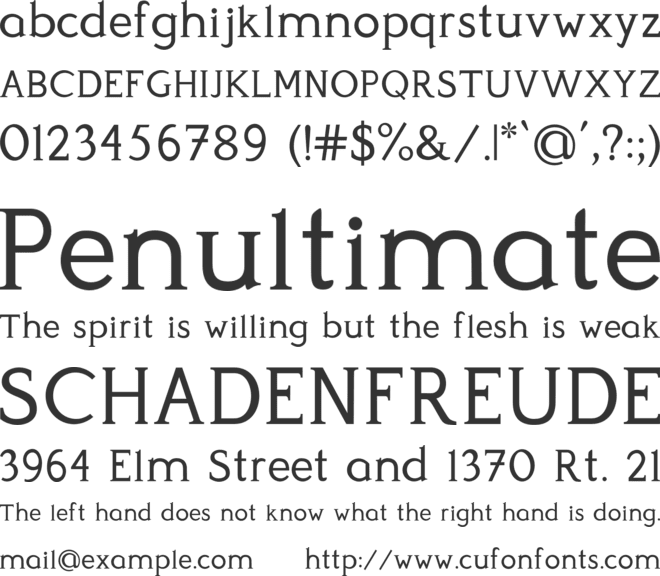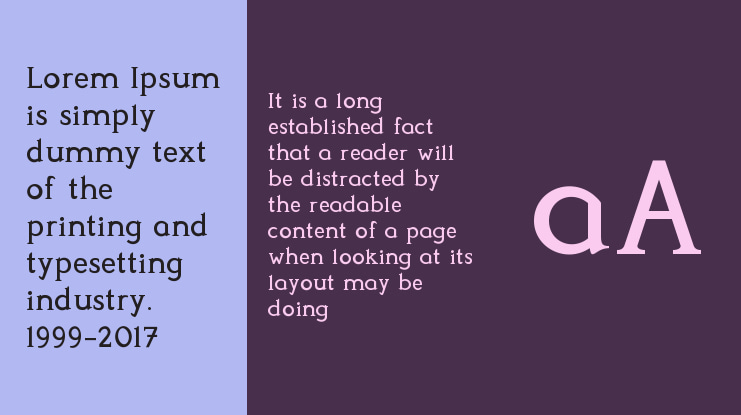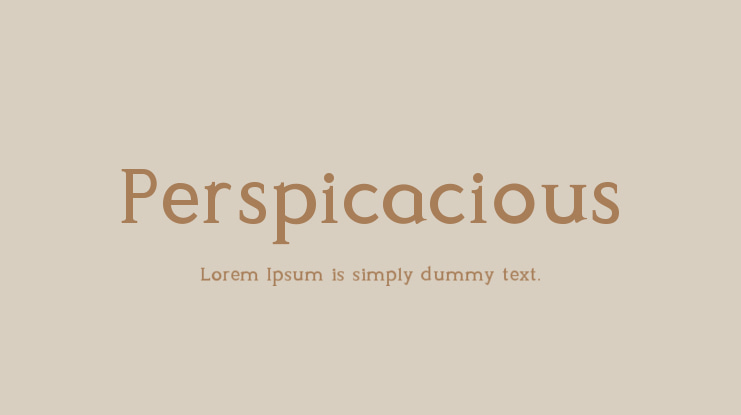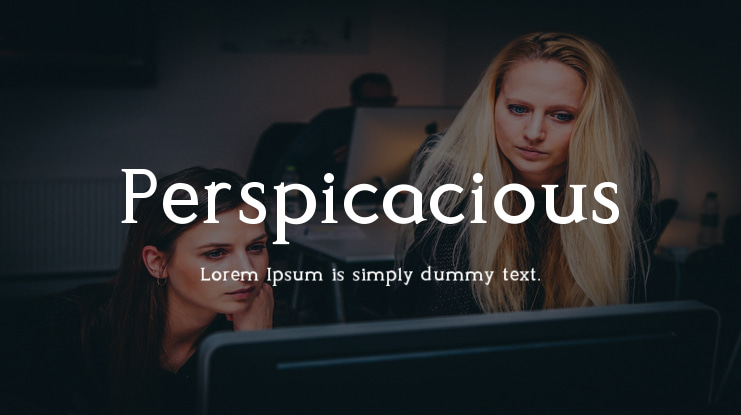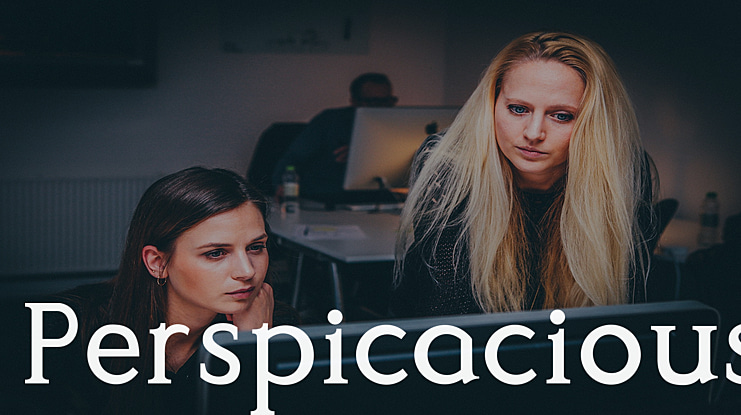
Perspicacious Font Family
Sharvanna Kenny
Perspicacious is a serif typeface designed as a final graphic design project. It has been designed to be as readable as possible.